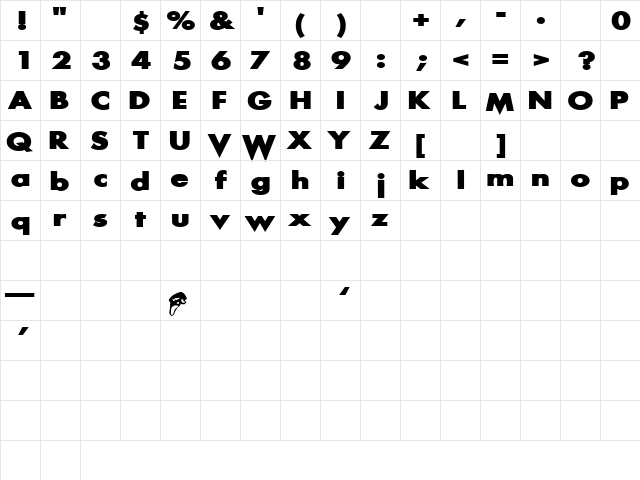
Scream Regular
Design Context for Scream Typeface
Scream is a composed and adaptable typeface that performs quietly and consistently across a wide range of design contexts.